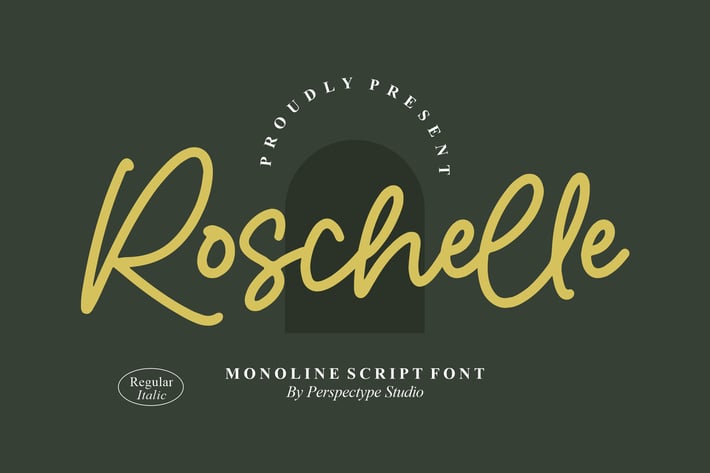
Roschelle Monoline Script Font
Roschelle is a smooth and elegant monoline script font designed to bring a clean handwritten charm to your creative projects. With its consistent single-stroke flow and stylish curves, this typeface delivers a modern, friendly, and effortlessly aesthetic look. Ideal for designers who want a handwritten touch that remains clean, professional, and versatile across many styles.
Elegant and modern monoline script style
Smooth, consistent single-line strokes
Stylish curves for a refined handwritten look
Includes Regular and Italic styles
Branding & logo design
Wedding and event invitations
Social media posts & quotes
Product packaging and labels
Photography watermark signatures
Lifestyle content & promotional materials
Elegant title compositions
* Personal creative projects
Soft, stylish, and effortlessly modern — Roschelle brings a warm handwritten charm to every design.